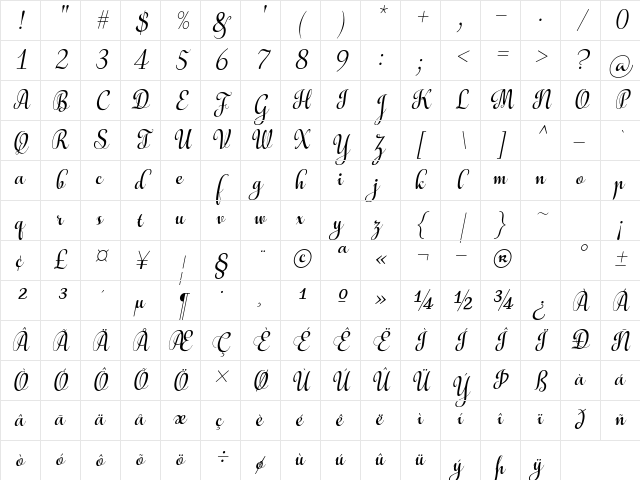
Aulyars Italic
Foundry: Situjuh Nazara
Designer: Situjuh Nazara
Design Context for Aulyars
Aulyars is a composed and adaptable typeface that performs quietly and consistently across a wide range of design contexts. The slanted form adds forward momentum and visual energy.
Pro Tip: Use Aulyars for emphasis, pull quotes, and subheadings where its slanted energy can add rhythm to the layout.